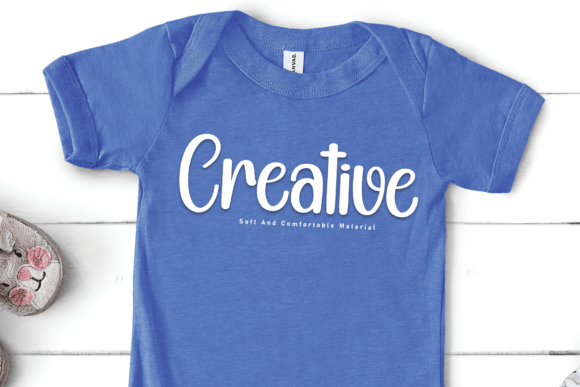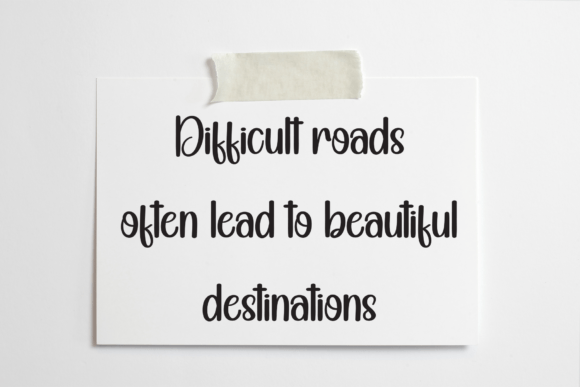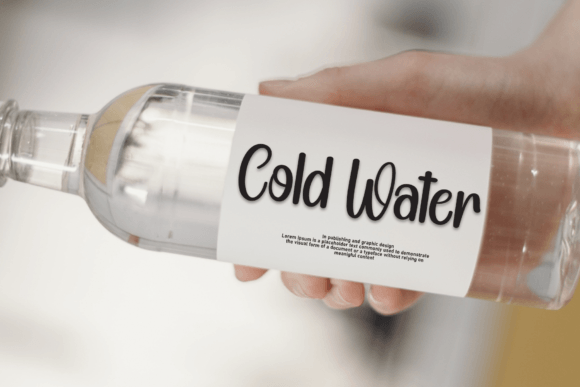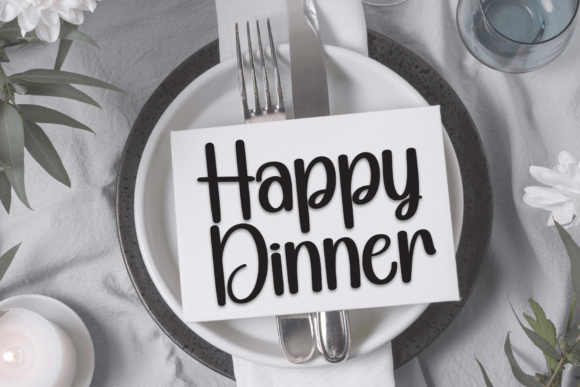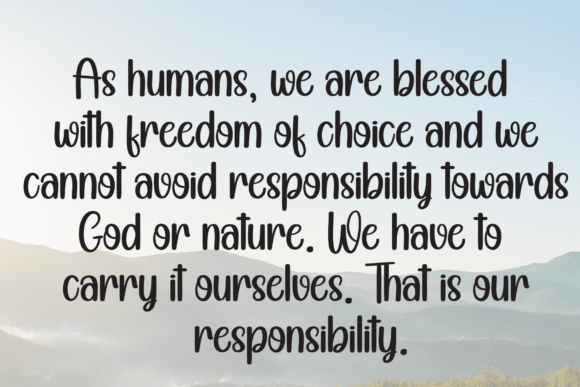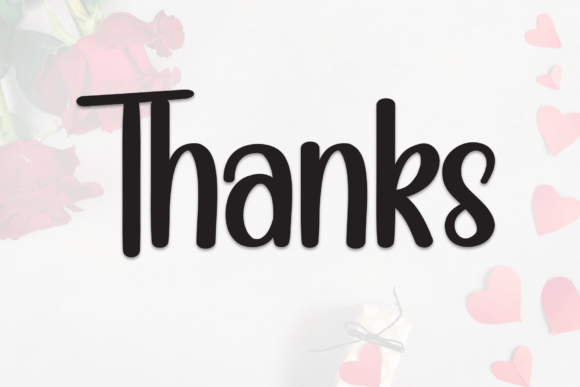
Introduction to Romantic Comedy Font
Do you ever find yourself stuck on a creative project, searching for the perfect font to bring your vision to life? I’m sure we’ve all been there, scrolling through endless font options, trying to find that one special something that makes our design truly stand out. And then, it happens – you stumble upon a font that makes your heart skip a beat, and you know you’ve found the one. For many designers, that font is the Romantic Comedy Font.
| 📌 Product Name | Romantic Comedy Font |
| 👤 Author | Roronoa zoro.S.P.D |
With its sweet and friendly handwritten style, the Romantic Comedy Font is the perfect addition to any creative project. Its natural and unique design makes it incredibly versatile, allowing you to experiment with different designs and styles. Plus, with a transparent background and high-quality design, you can trust that your project will look amazing.
Key Features of Romantic Comedy Font
- High-quality design: Romantic Comedy Font is designed to bring a touch of elegance and sophistication to any creative project.
- Transparent background: This font allows for a seamless integration with any design element, making it perfect for projects requiring a subtle yet romantic feel.
- High-resolution design: With a resolution of 300 DPI, Romantic Comedy Font is suitable for both digital and print projects, ensuring crisp and clear text.
- Unique characteristics: This font features a distinctive, cursive script with a touch of whimsy, making it perfect for titles, headings, and other design elements that require a romantic touch.
- Perfect for creative projects: Whether you’re working on a wedding invitation, a romance novel cover, or a Valentine’s Day-themed design, Romantic Comedy Font is an excellent choice.
Honest Review: Romantic Comedy Font
I recently came across the Romantic Comedy Font, and I must say it’s a great addition to any design project. The font is perfect for creating a light-hearted, playful atmosphere in your designs.
- ✨ High-quality design: The font is well-designed and has a professional finish, making it perfect for use in various creative projects.
- ✨ Unique style: The font has a unique style that’s perfect for adding a touch of romance and comedy to your designs.
- ⚠️ Limited font sizes: The font only comes in a limited number of font sizes, which may be a drawback for some designers.
- ⚠️ No transparent background option: The font does not have a transparent background option, which may limit its use in certain design projects.
Overall, I’m impressed with the Romantic Comedy Font. It’s a great design resource that’s perfect for adding a touch of romance and comedy to your designs. While it has some limitations, it’s a high-quality font that’s definitely worth considering for your next creative project.
Introduction to Romantic Comedy Font
The Romantic Comedy Font is a high-quality, free download design resource perfect for creative projects that need a touch of whimsy and romance. With a transparent background, this font is versatile and can be used in a variety of contexts.
Experiment with different font sizes and styles to create a unique look. Combine the font with other design elements, such as illustrations or graphics, to add depth and interest to your designs.